Museo Bodoniano's shapeshifting celebration of Giambattista Bodoni’s Manuale Tipografico should mesmerize you
"I live cut off from the world, endeavouring to finish my Manuale tipografico which has kept me extremely busy for forty years, and be assured that you will receive a copy as long as it meets praiseworthy completion" wrote Giambattista Bodoni to Andrés Franco Castellanos in his letter, dated 29 December 1800.
Two centuries later, his legacy is remembered in Museo Bodoniano's stunning Segni Esemplari exhibition.
The exhibition, curated by Silvana Amato with Grazia Maria De Rubeis and Caterina Silva, is a must-see for the typophiles and the lovers of the visual supremacy alike. On top of the typographic treasures on display the Bodoni Museum invited the A-listers of the global graphic design and typographic community to contribute their own design manifestos in a typographic approach Bodoni would appreciate.
Exotic typefaces and exquisite typographic craftsmanship made by Patrick Thomas, Sascha Lobe, Matthew Carter and more are displayed alongside the museum's numerous exhibits.
"The year has just ended celebrating the bicentenary of the publication of Giambattista Bodoni’s Manuale tipografico; which has prompted the organisation of an exhibition and study day at the Palatina Library of Parma" writes Silvana Amato.
"As is generally known, the typographic manual was a project that he developed over a long period, later published posthumously by his widow. The manual contains a collection of 665 different alphabet letters and a series of about 1,300 decorations, as well as a preface in which Bodoni explains some of the criteria relating to his working methods.
There is an earlier collection of typefaces, printed by Bodoni in 1788, with no preface or explanatory text, which at the time was also entitled Manuale tipografico. The typographer from Parma had obviously borrowed the name that Pierre–Simon Fournier used for his small technical manual, the Manuel Typographique of 1764, but in reality the two volumes, although sharing the same title had different functions.
Fournier’s was a true manual in the sense that it was a didactic tool that described the essential elements of a complex activity, from punch cutting to creating matrices and the making of moveable characters. Whereas Bodoni’s manual was a sample book of typefaces designed by him, thus closer to what would generally be defined in the printing world of the time as a specimen book, printed by typographers in order to show all the glyphs available from their letter foundry.
Illustrious precedents of this sort of publication can be found in the Index sive specimen characterum printed in Antwerp in 1567 by Plantin, the Specimen characterum printed in Frankfurt in 1592 and later the letter–founder Caslon’s sheet of characters printed in London around 1725.
In fact, it is clear that the 1818 Manuale tipografico, despite its name, is a hybrid that belongs neither to the field of manuals, nor to that of typeface sample books with a commercial aim. Rather it is a proud summary of his activity that Bodoni wished to conserve in time, setting it down in black and white.
Given the above, we are taking this opportunity to exhibit alongside Bodoni’s volumes, his punches and matrices, handwritten works and archival documents, some manuals and typeface books from other printer (preceding and following 1818), with the aim of bringing these two distinct and little–known types of books to a less specialised public. What the books have in common is the object of the narrative, which is to say alphabetic lettering in its typographic form; writing that, as it spread, has had such a vast effect (in good ways and bad) on western culture over the last five centuries.
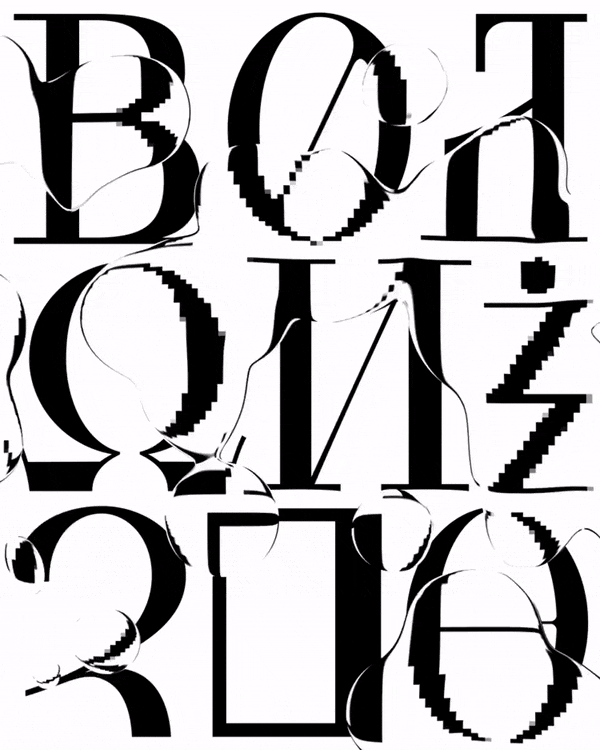
At the same time, a section has been dedicated to printing today. Graphic designers from around the world have been invited to contribute to a small typographical poster or design manifesto, each in the alphabet of their own language of origin but in line with Bodoni’s interest for exotic typefaces. The aim of this section of the exhibition is to set up visual recognition of concepts based on the potential of writing expressed by the graphic designers, who are known to have an outstanding typographic approach.
If the poster can also be defined a programmatic document that lays out rules and inspirational principles, in this case, it may be said that the object in question and its shape coincide, as do the designer’s creative principles and typeface.
Hence, Exemplary Signs stand as visual testimonies that allow us to trace the unfolding of our own history through the evolution of the shape of lettering, and to take the occasion to encourage new critical discussions on the theme of writing as a tool for knowledge."
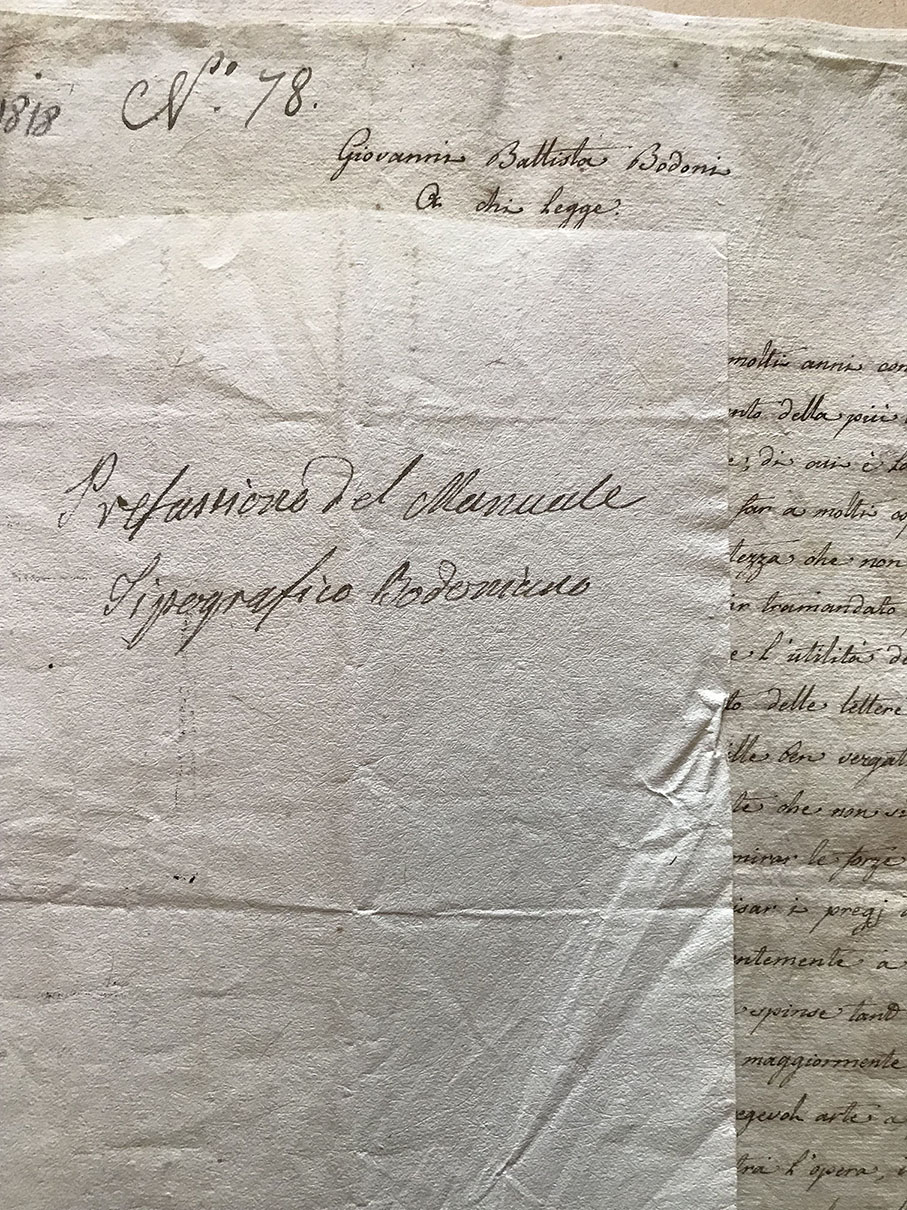
The Museo Bodoniano is the oldest printing museum in Italy. Opened in 1963, coinciding with the 150th anniversary of the death of Giambattista Bodoni, the Piedmontese typographer that made Parma the world capital of the press starting from the second half of the eighteenth century, this institution reminds to the graphic design community the importance of this legend of the letterform.
Segni Esemplari (Exemplary Signs) is on show at Palazzo della Pilotta near Galleria Petitot in the Biblioteca Palatina till the 18th of May 2019. Discover the beauty of it all here.